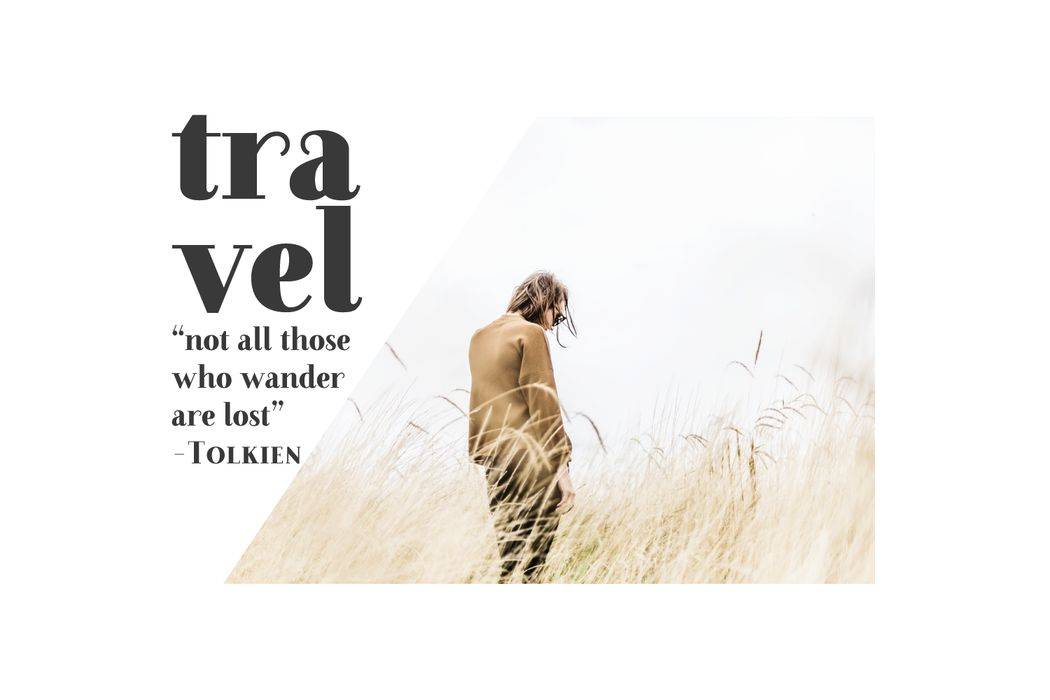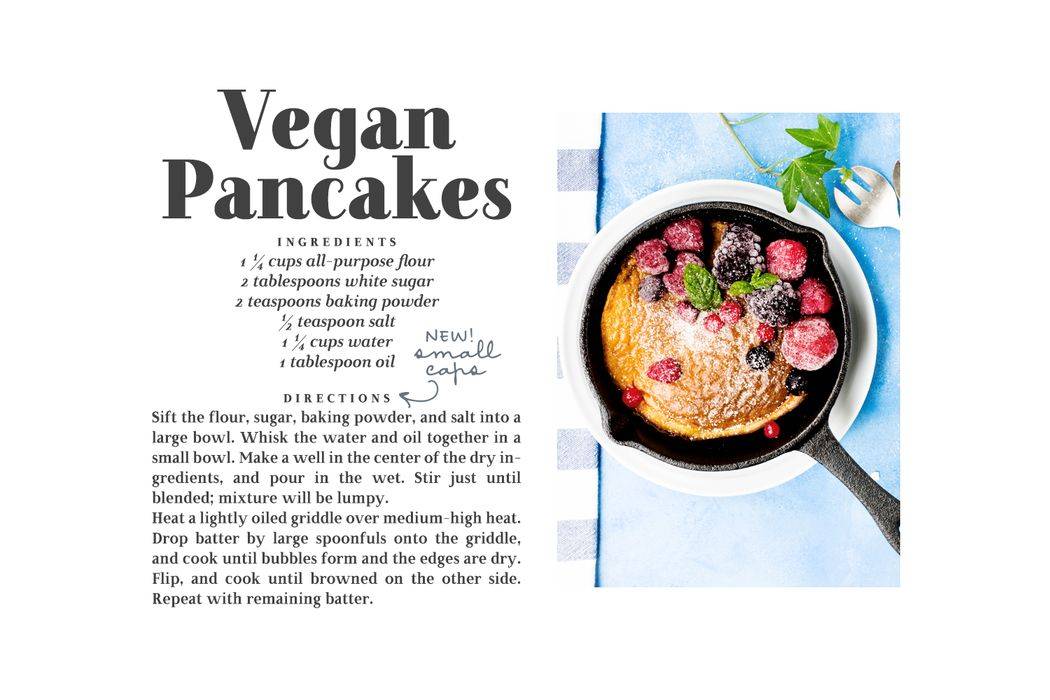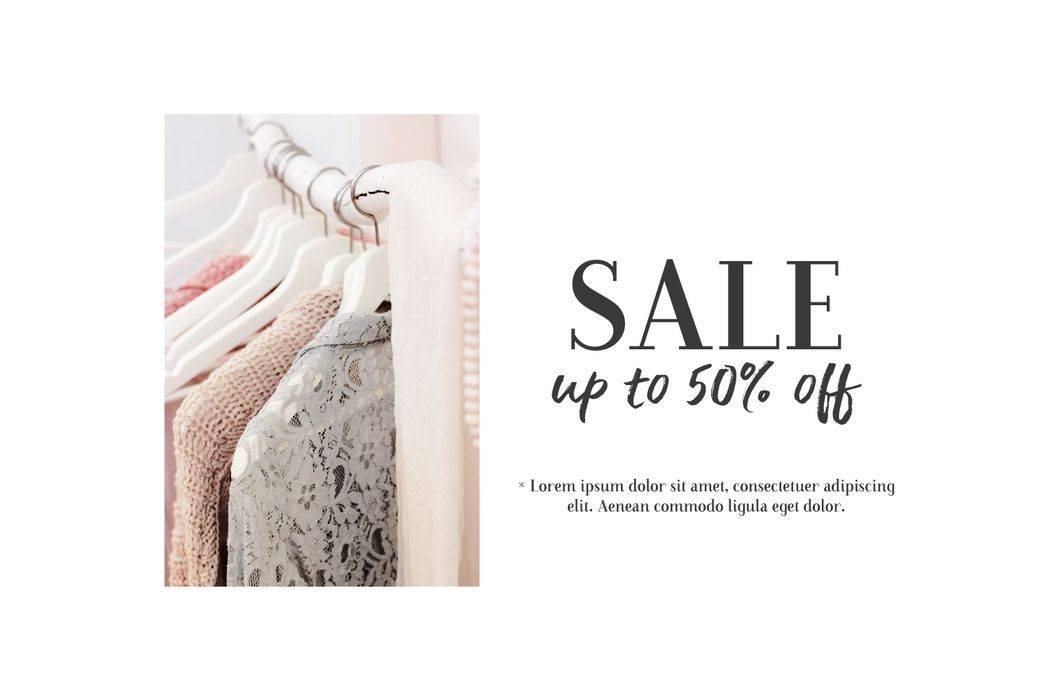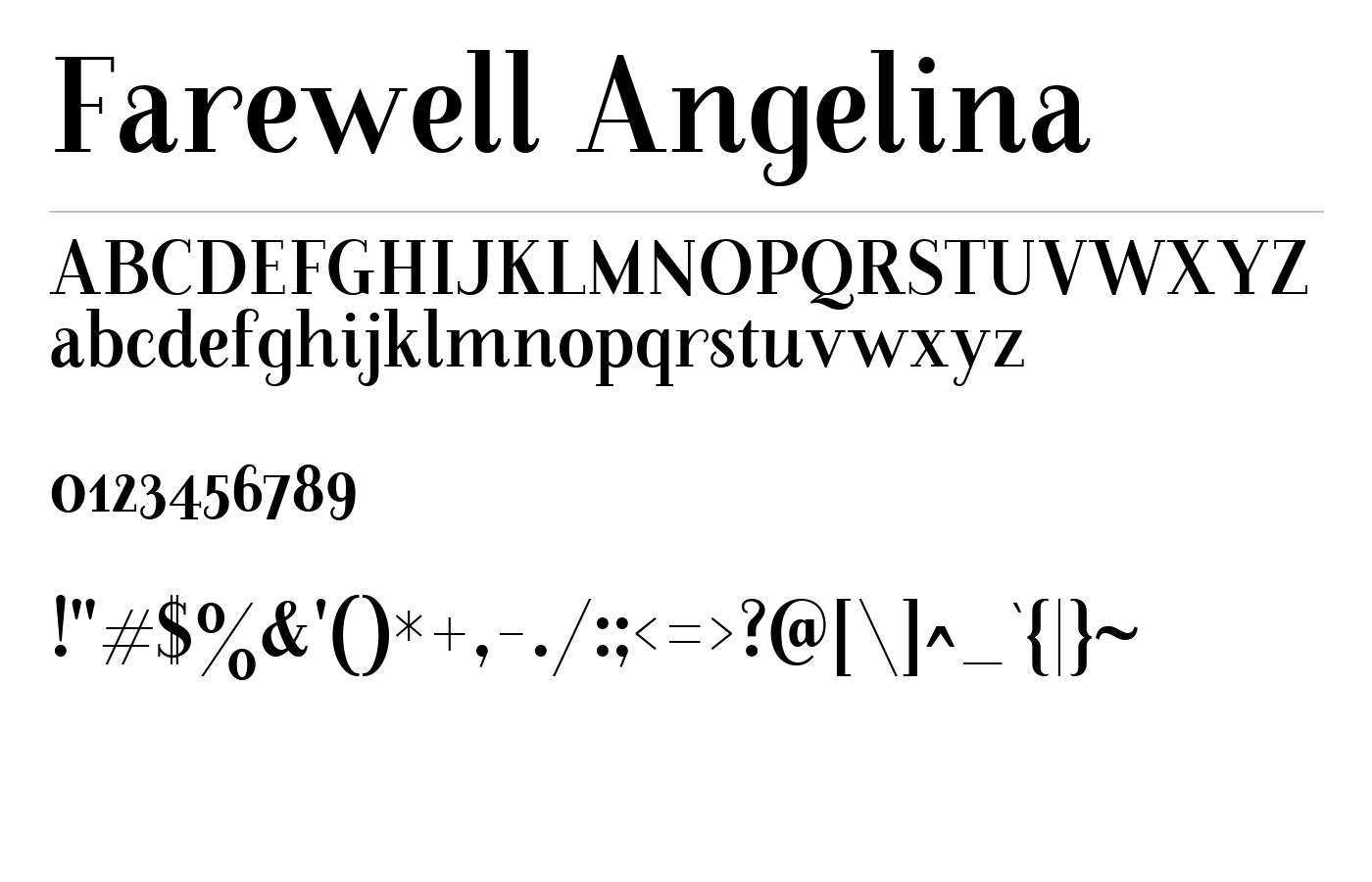
Farewell Angelina is a refined serif font that features a classic, high-contrast design with elegant, bracketed serifs and a crisp, sophisticated feel. Its medium weight and clean, slightly condensed letterforms make it ideal for stylish headlines, editorial layouts, and luxury branding that seeks a timeless yet distinctive look. This font pairs traditional charm with subtle modern touches, making it perfect for projects that want to convey elegance and professionalism with a hint of personality.
| Designer | Ana Parracho |